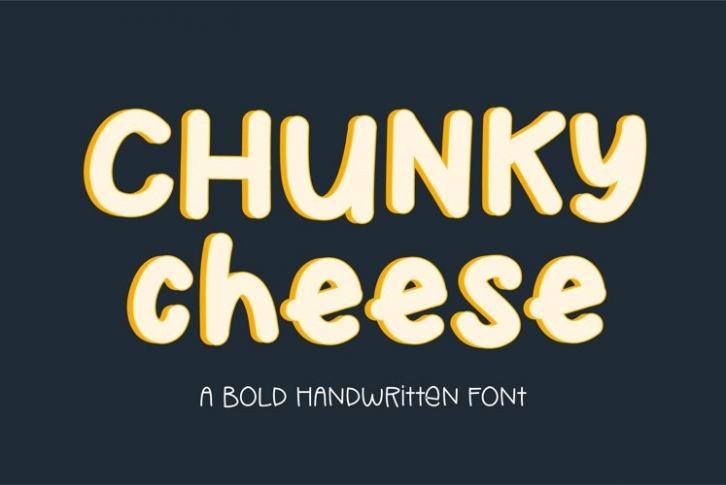
Chunky Cheese is a beautiful font that was designed by plusstore. It's a great choice for designers and creatives who need such a font. It was released on September 23, 2021 and the file size is 11.8 MB. Chunky Cheese may give a more youthful, expressive and casual look to your project. It is a very beautiful, refined, elegant, and high-quality font.